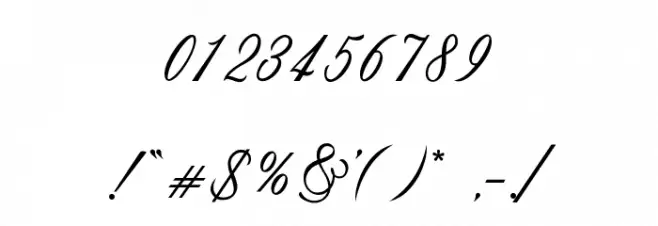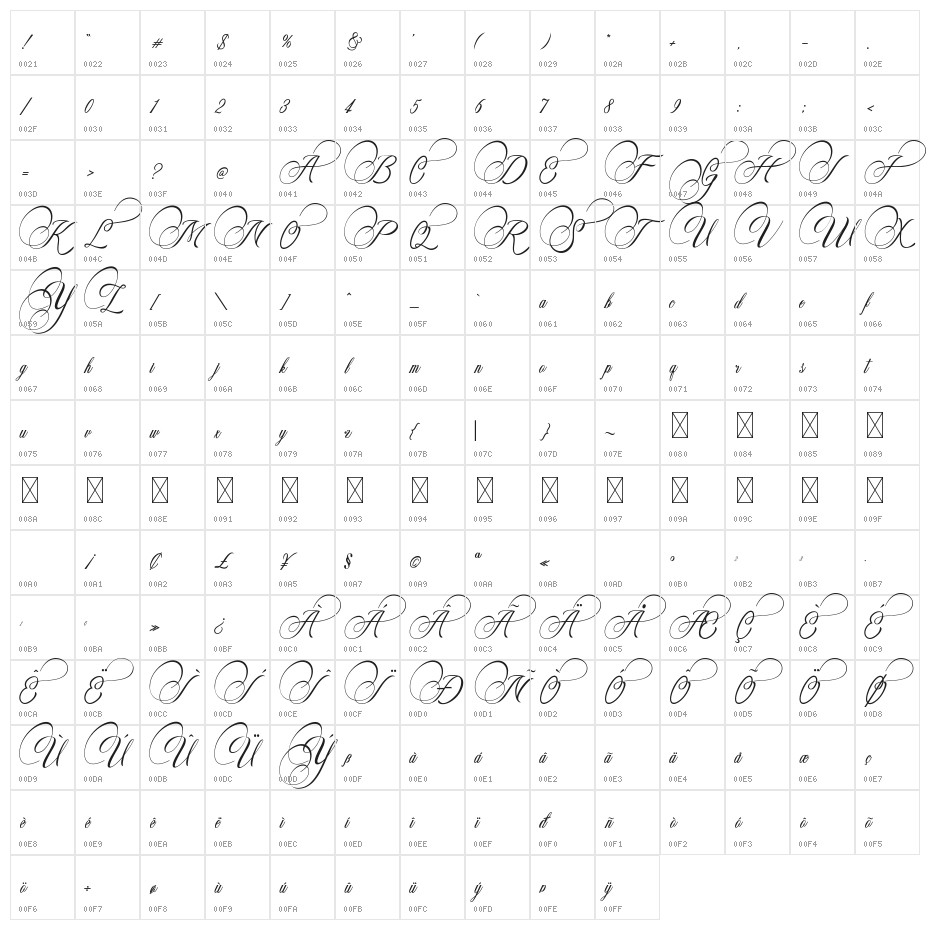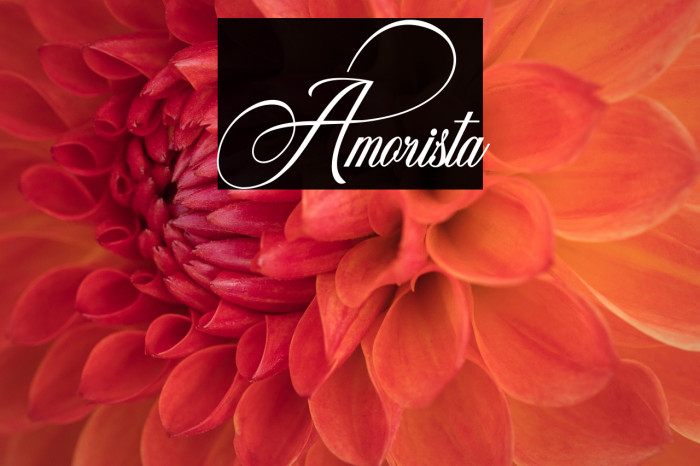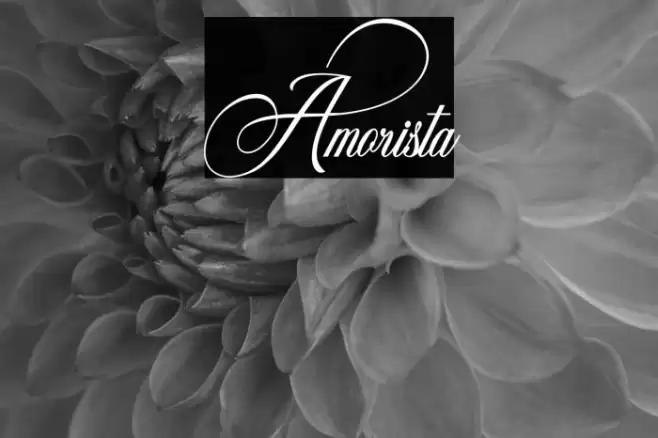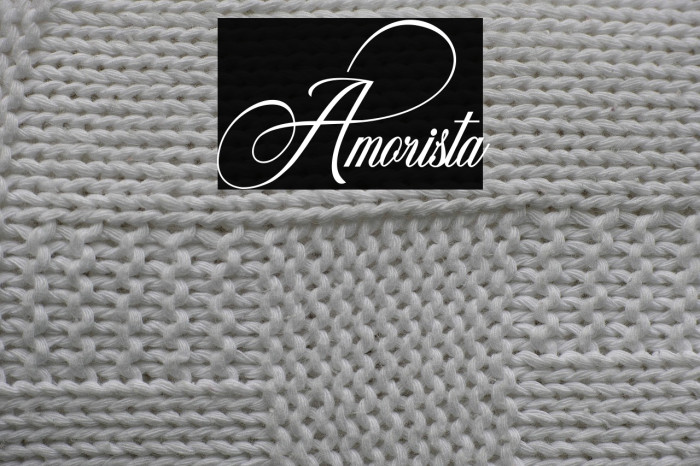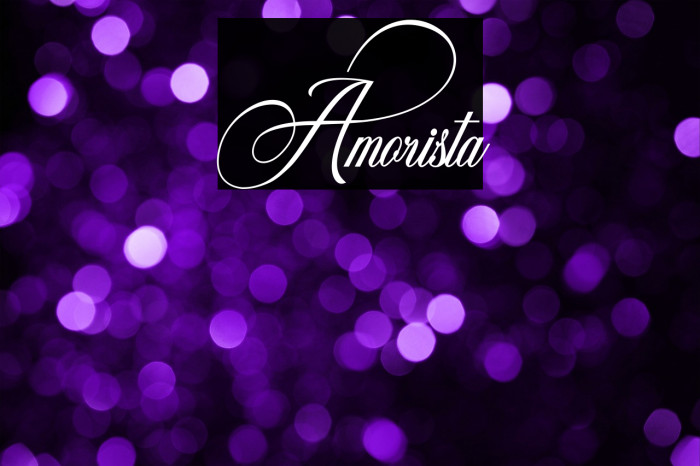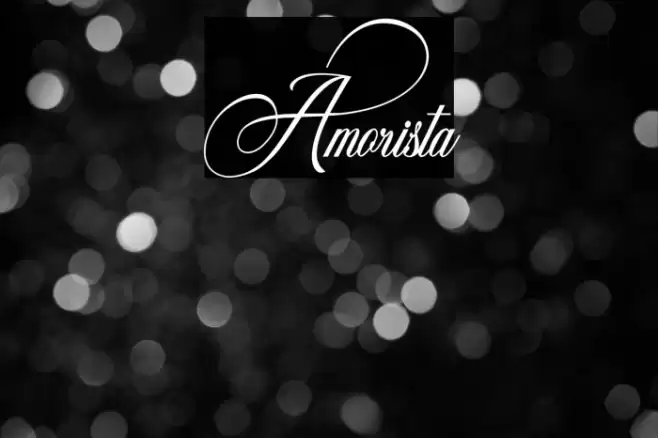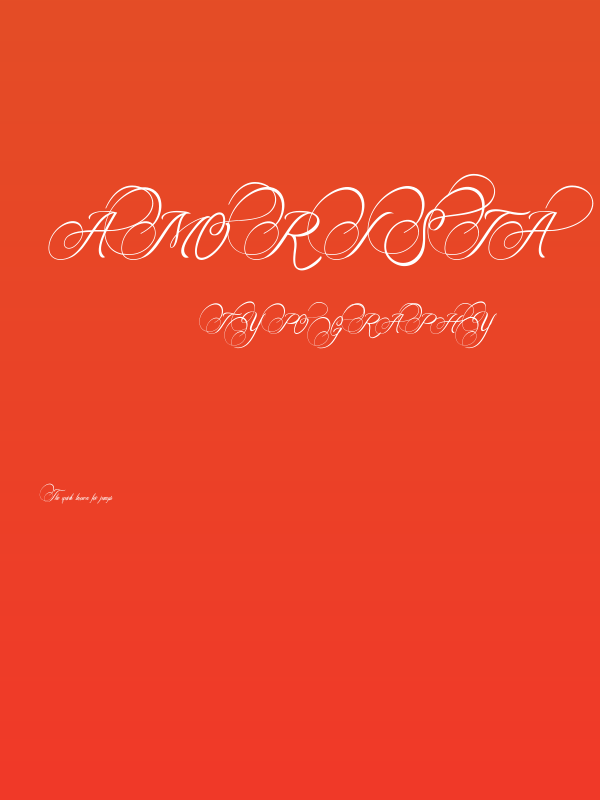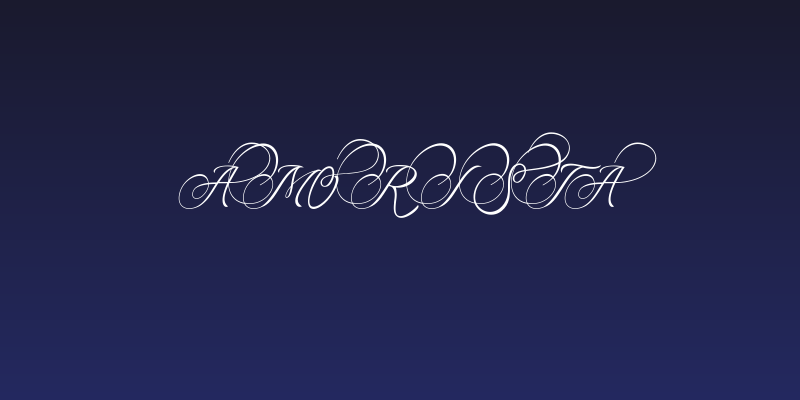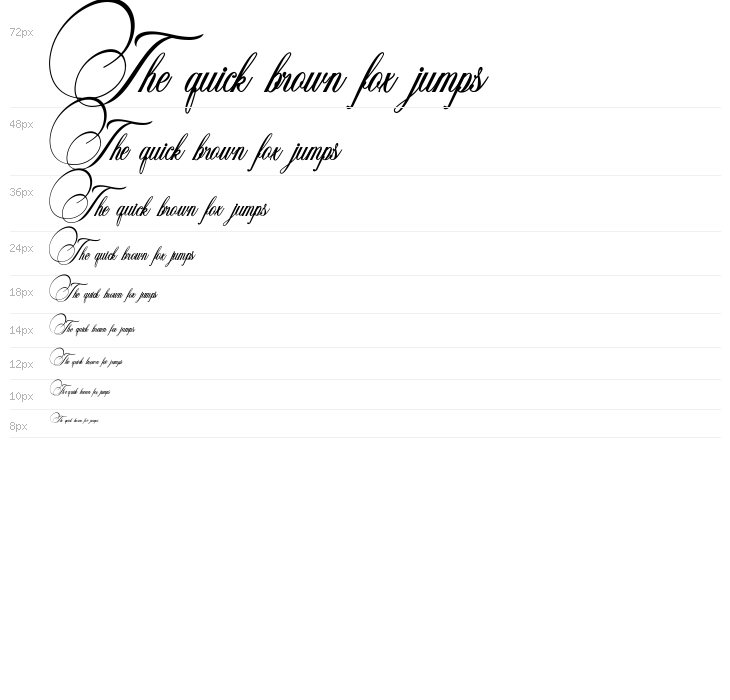
Amorista Font
Amorista Description
This elegant script font features intricate, flowing letterforms with a high degree of flourish and sophistication. The uppercase letters are particularly ornate, with sweeping loops and curves that give a sense of movement and grace. The lowercase letters maintain a more restrained elegance, offering a nice contrast to the elaborate capitals. The numerals and special characters are designed with the same attention to detail, ensuring consistency throughout the typeface. This font's delicate strokes and high contrast between thick and thin lines contribute to its refined and luxurious appearance, making it ideal for formal invitations, branding, and decorative purposes.
| Proposed Projects | Ideal for wedding invitations, luxury branding, elegant stationery, and decorative headlines. |